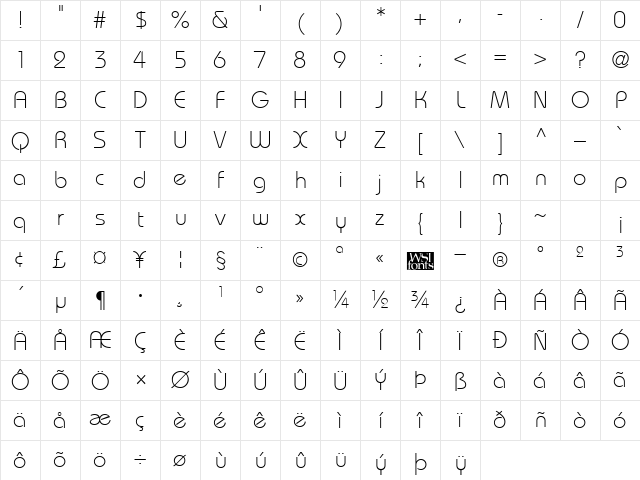
BordeauxLight Regular
BordeauxLight Regular Family
BordeauxLight Regular
BordeauxLight Regular Font Preview
BordeauxLight Regular Preview
BordeauxLight Regular Character Map
Complete BordeauxLight Regular glyph index. Displaying only characters natively supported by BordeauxLight Regular font.
Design Context for BordeauxLight
BordeauxLight is a composed and adaptable typeface that performs quietly and consistently across a wide range of design contexts. Its slender proportions lend an understated elegance to any composition.